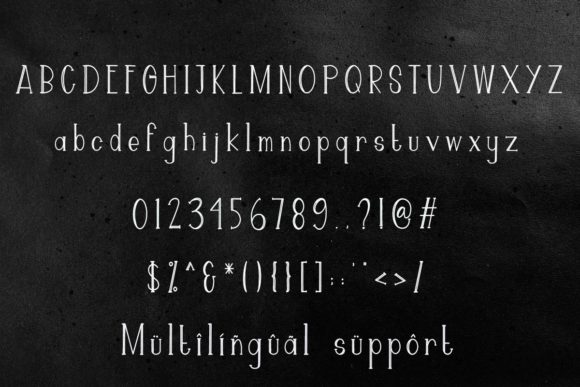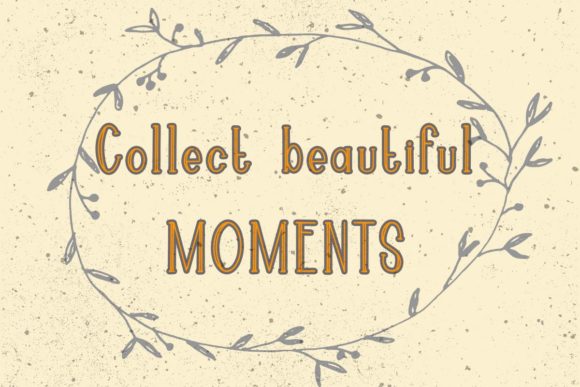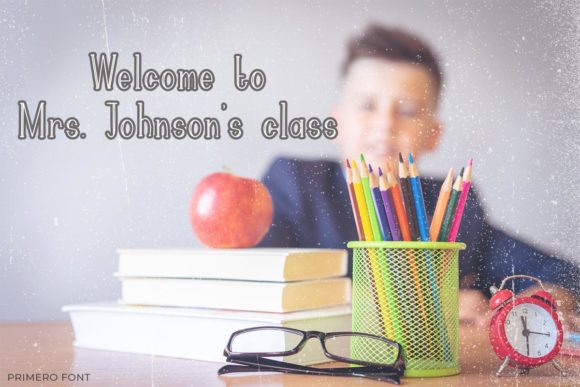
Introduction to Primero Font
Have you ever been stuck on a creative project, staring at a blank page, and suddenly, a font catches your eye and sparks an idea? That’s exactly what happened to many designers when they discovered the Primero Font. This unique and minimal serif font has been a game-changer for many design projects, offering a clean and sophisticated look that can elevate any concept.
As a valuable design resource, Primero Font can be easily matched to an incredibly large set of projects, making it a versatile choice for designers. Whether you’re working on a website, brochure, or social media campaign, this high-quality font is sure to make your creative project stand out. Plus, it’s available for free download, making it an accessible and cost-effective option for designers of all levels.
With its transparent background and sleek design, Primero Font is a must-have for any designer looking to add a touch of elegance to their work. In this article, we’ll dive deeper into the world of Primero Font and explore its features, benefits, and best uses.
Key Features of Primero Font
- High-quality design: This font boasts a high-quality design with a transparent background, perfect for adding a touch of sophistication to any project.
- Perfect for digital use: With a resolution of 300 DPI, Primero Font is ideal for digital projects, including website design, social media graphics, and more.
- Unique characteristics: This font features a unique blend of modern and vintage elements, making it perfect for creative projects that require a touch of elegance and sophistication.
Honest Review: Primero Font
As a designer, I’m always on the lookout for high-quality design resources that can elevate my creative projects. Recently, I came across the Primero Font, and I was excited to put it to the test.
What works well about the Primero Font is its versatility. With its clean and modern aesthetic, it’s perfect for a wide range of design applications, from logos and branding to digital products and publications. The font also has a transparent background, making it easy to use in different design contexts. ✨
- Versatile font
However, I did notice that the Primero Font has some limitations. For example, it may not be suitable for designs that require a bold or playful tone, as it tends to lean more towards a minimalist aesthetic. ⚠️
Overall, I’m impressed with the Primero Font, and I would definitely recommend it to designers who are looking for a high-quality, free design resource. With its clean and modern aesthetic, it’s a great addition to any design toolkit.
Tips for Getting the Most Out of Primero Font
To get the most out of Primero Font, be sure to use it on a transparent background to give your designs a clean and modern look. You can also experiment with different font sizes and styles to create a unique and eye-catching design.
Primero Font is a versatile design resource that can be used in a wide range of creative projects, from branding and marketing materials to presentations and documents. Some common use cases include:
- Creating social media graphics and ads
- Designing presentations and reports